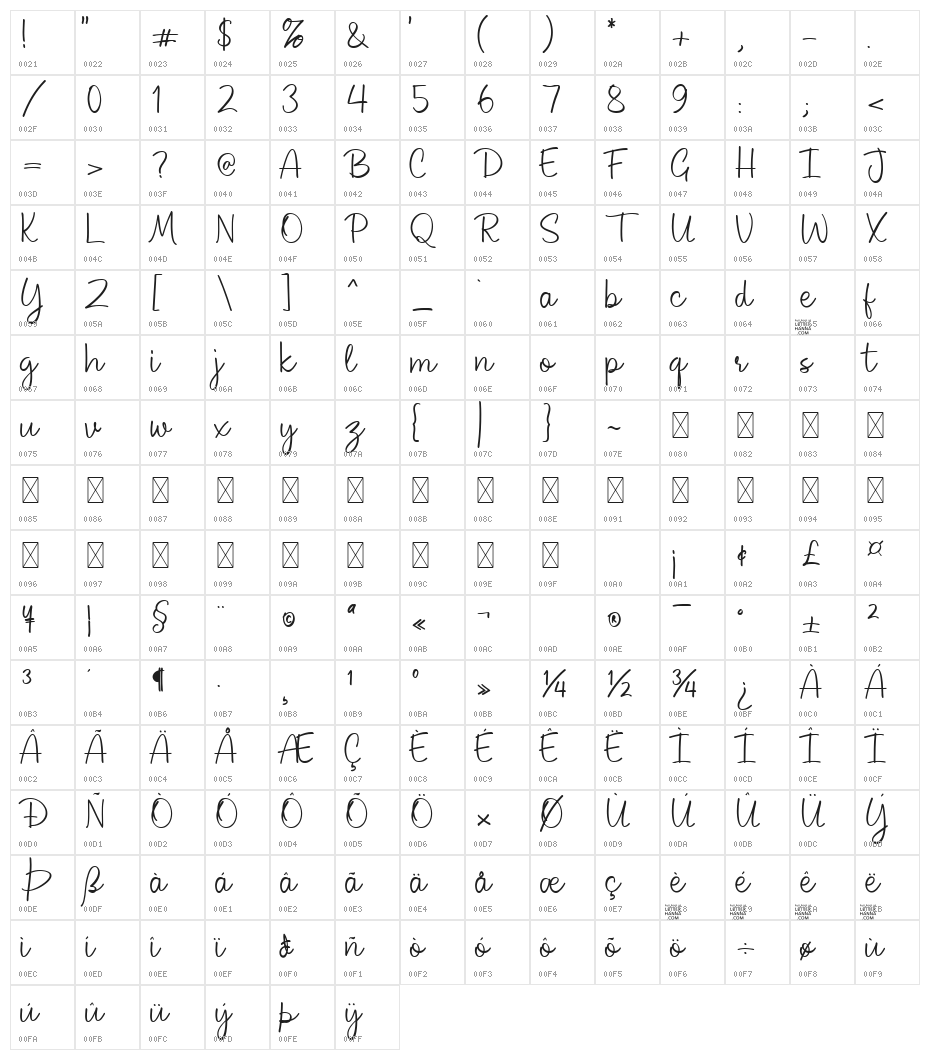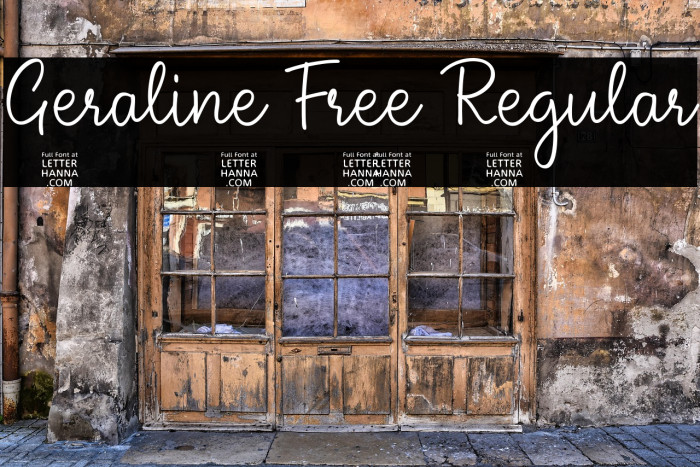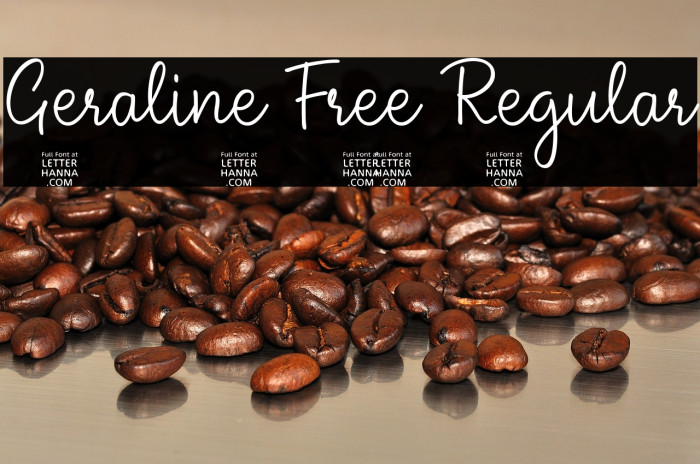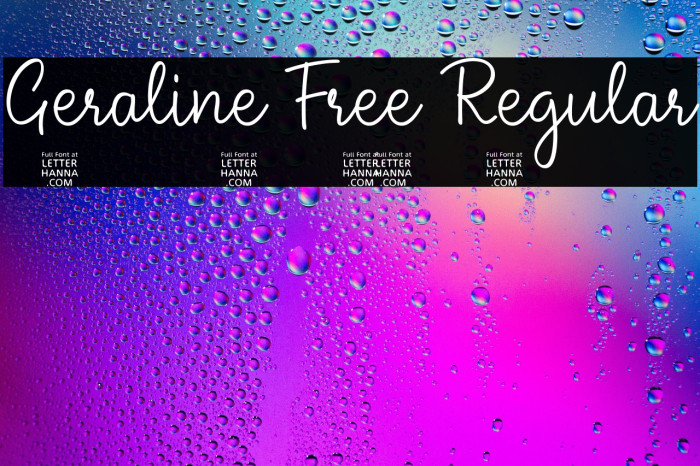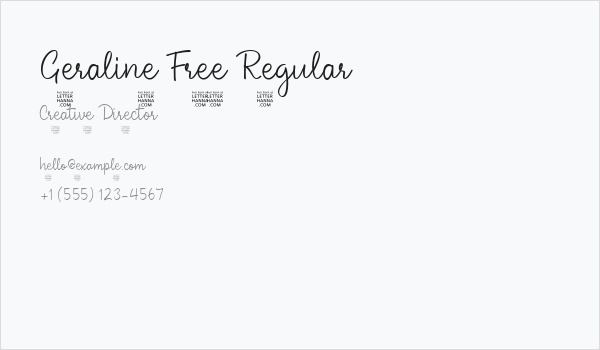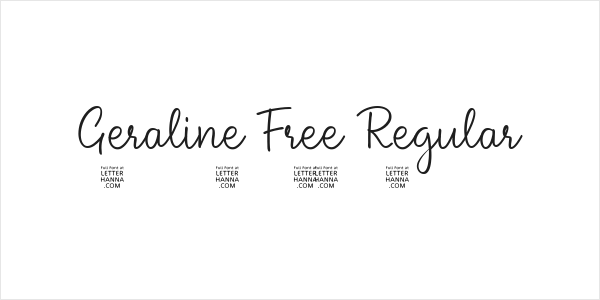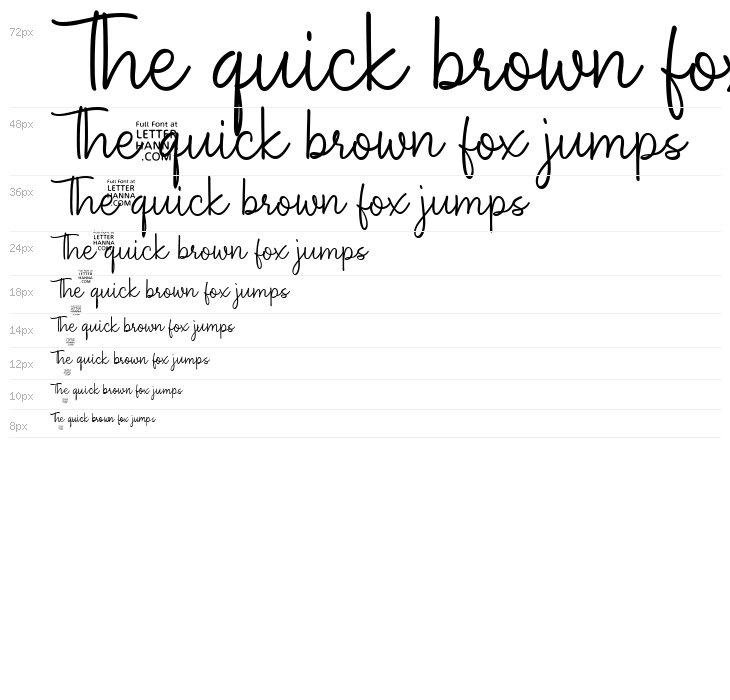
Geraline Free Regular Font
Geraline Free Regular Description
This font features a clean and elegant design with smooth curves and a balanced structure. The uppercase letters are slightly taller, giving a sense of sophistication and modernity. The lowercase letters maintain a consistent flow, enhancing readability. The numbers are well-proportioned, and the special characters blend seamlessly with the overall style. This font exudes a sense of professionalism while remaining approachable, making it versatile for various design needs.
| Proposed Projects | Ideal for branding, editorial design, invitations, and corporate materials. |